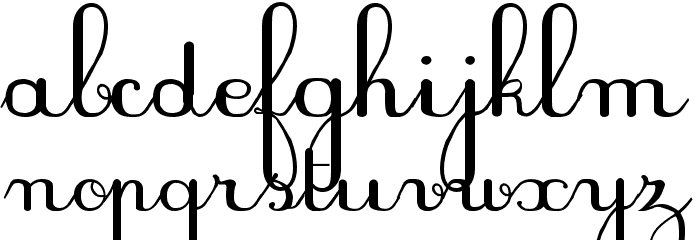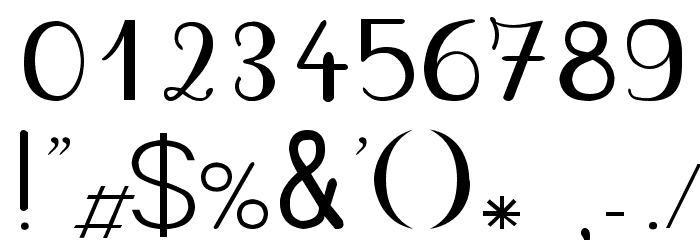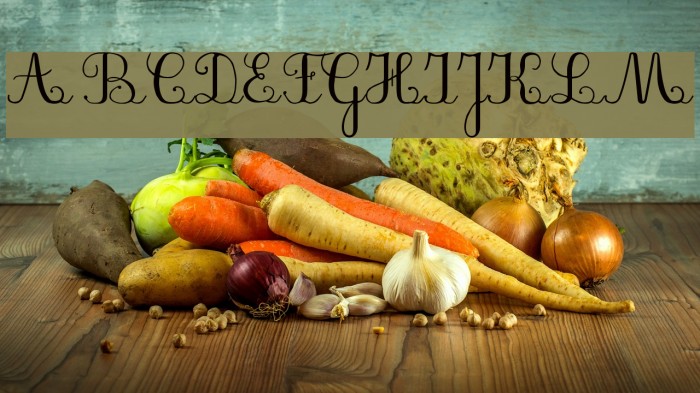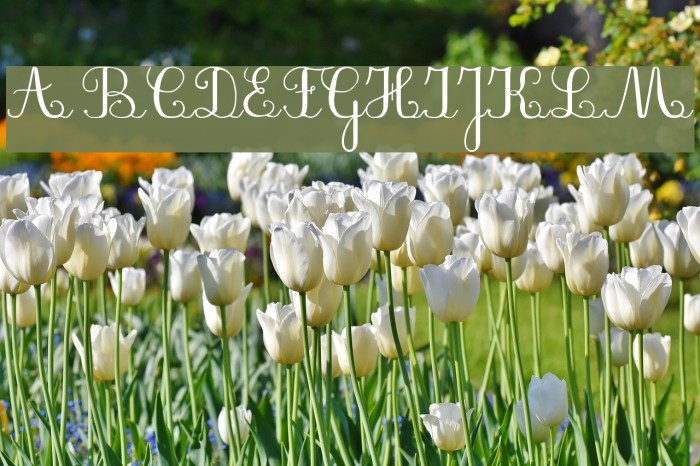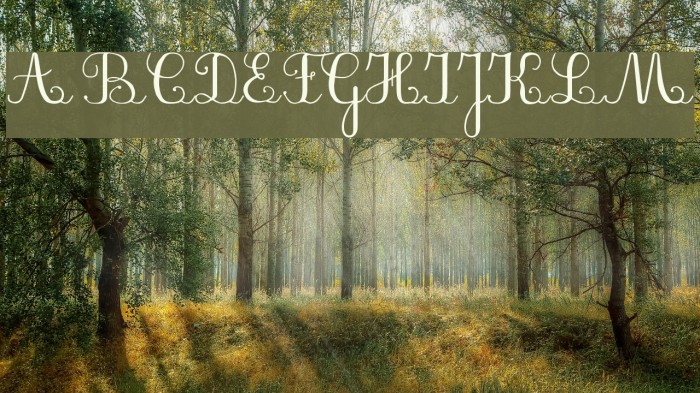
PlumBAL Font
This font features an elegant and decorative script style with a playful and whimsical touch. The uppercase letters are characterized by intricate loops and swirls, giving them a sophisticated yet approachable appearance. The lowercase letters maintain a consistent flow, with smooth curves and a slight slant that adds to the overall fluidity. The numerals are distinct and clear, matching the ornate style of the alphabet. Special characters are thoughtfully designed to complement the overall aesthetic, making this font suitable for creative and artistic projects.
An elegant and decorative script font with playful loops and swirls.